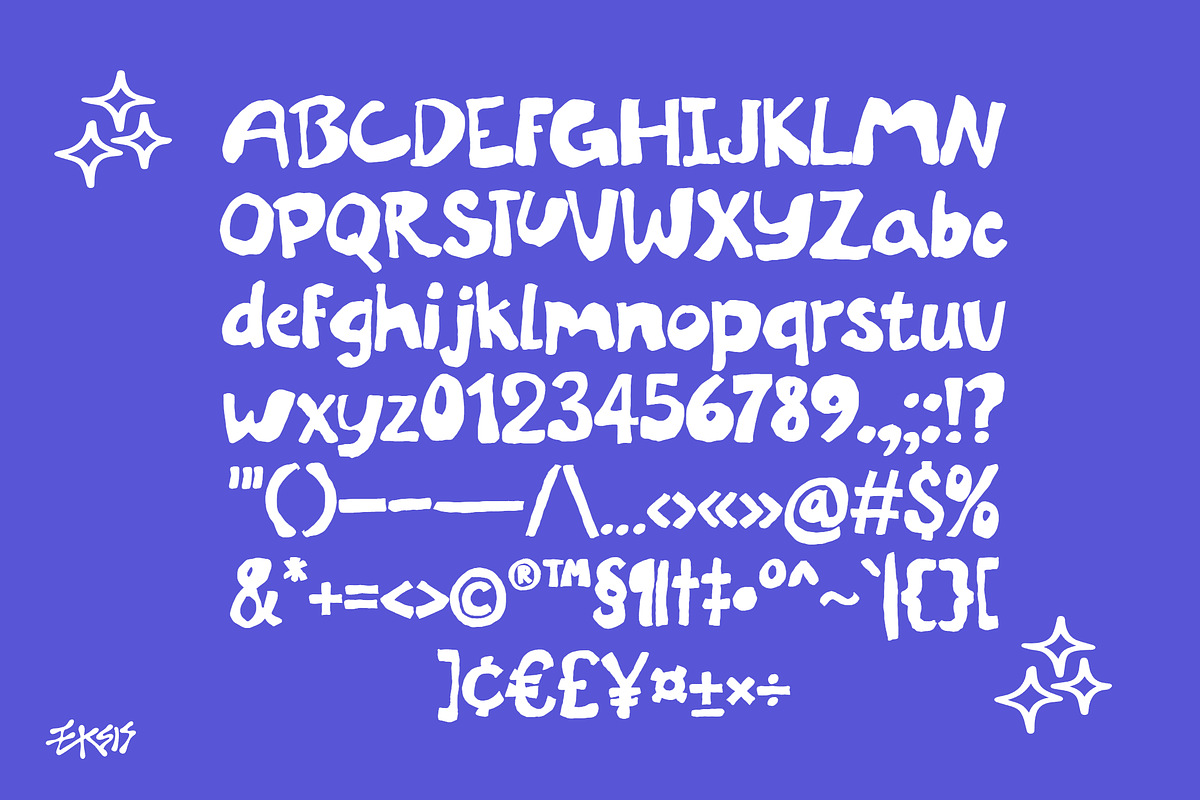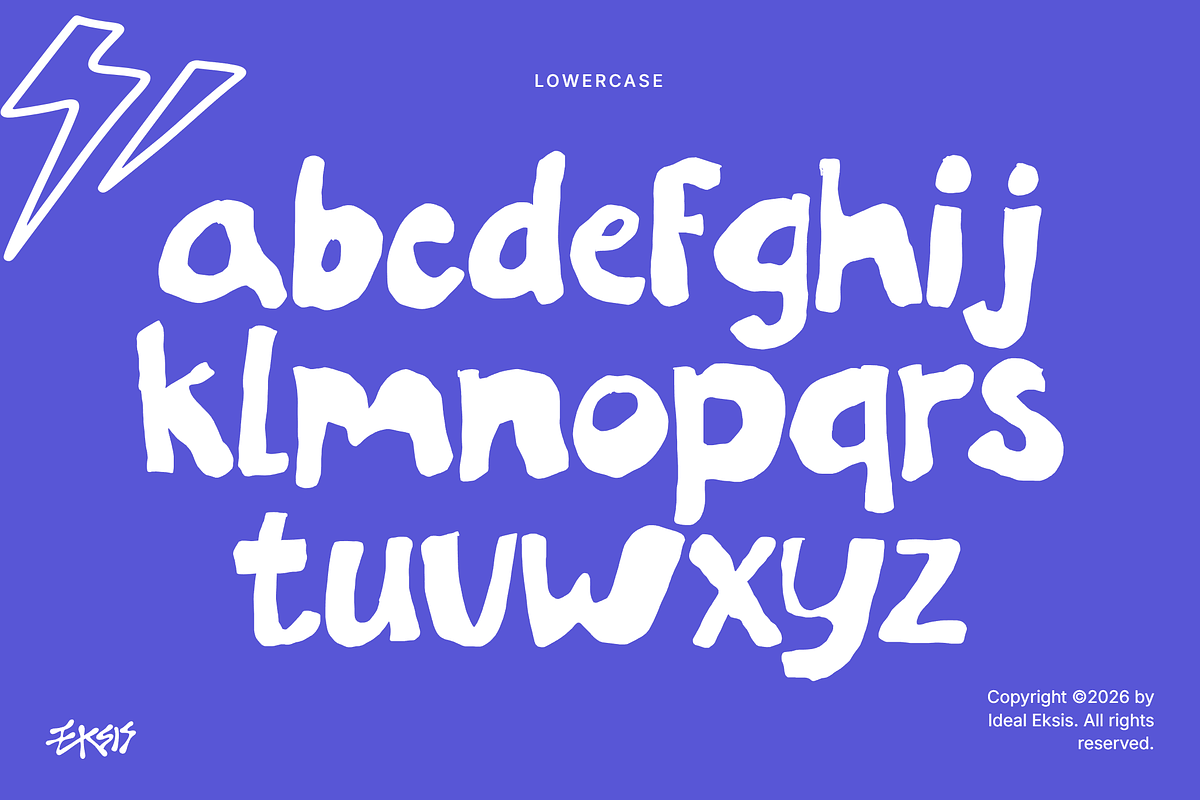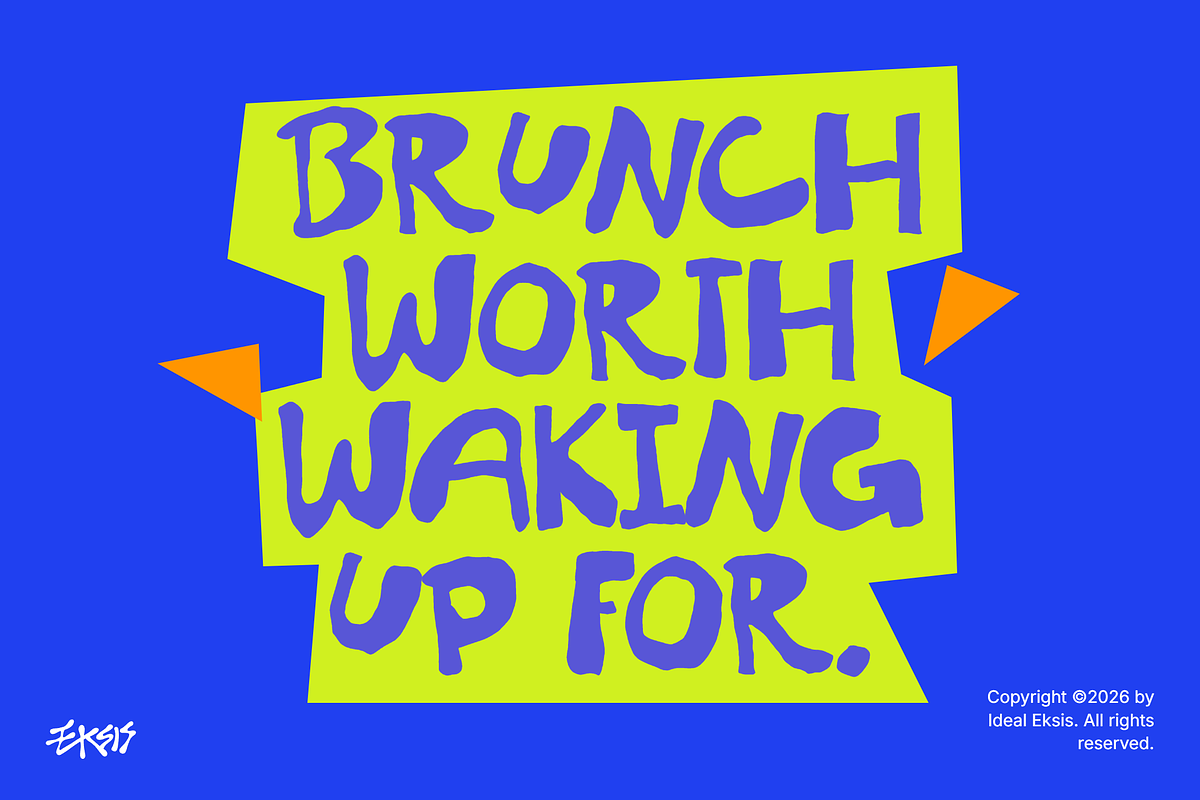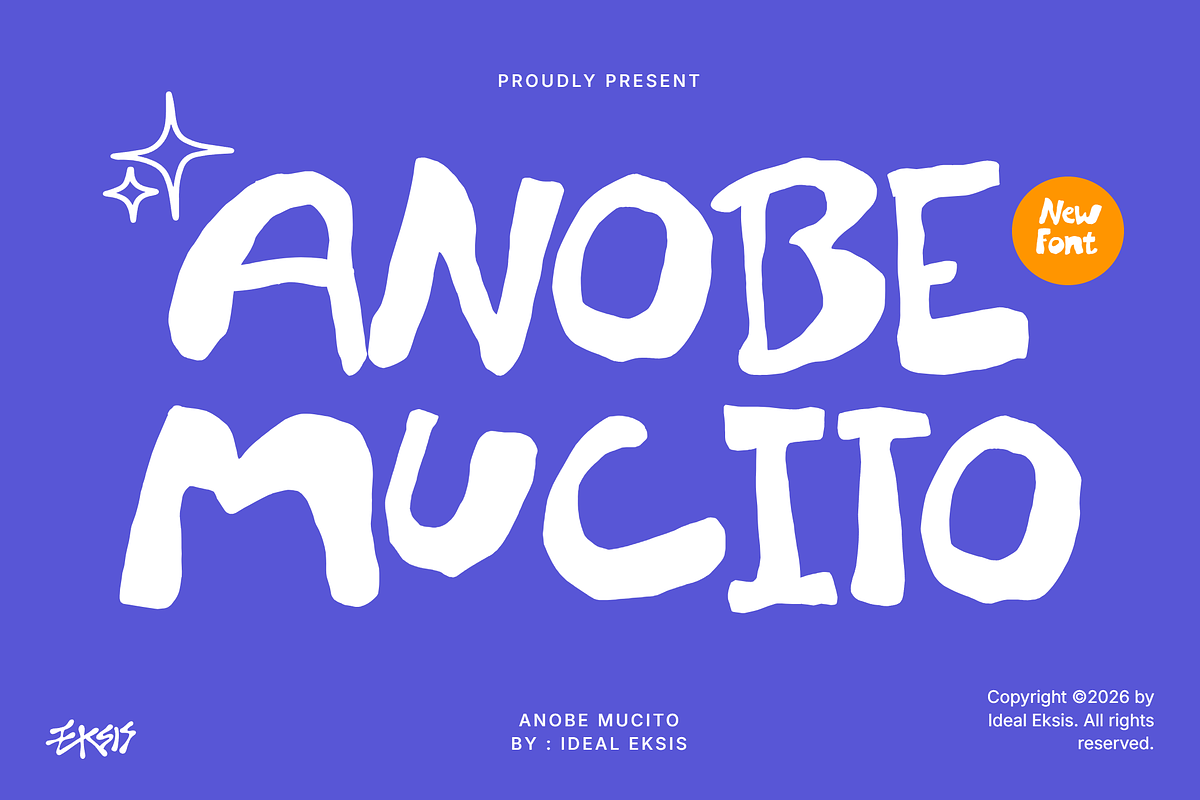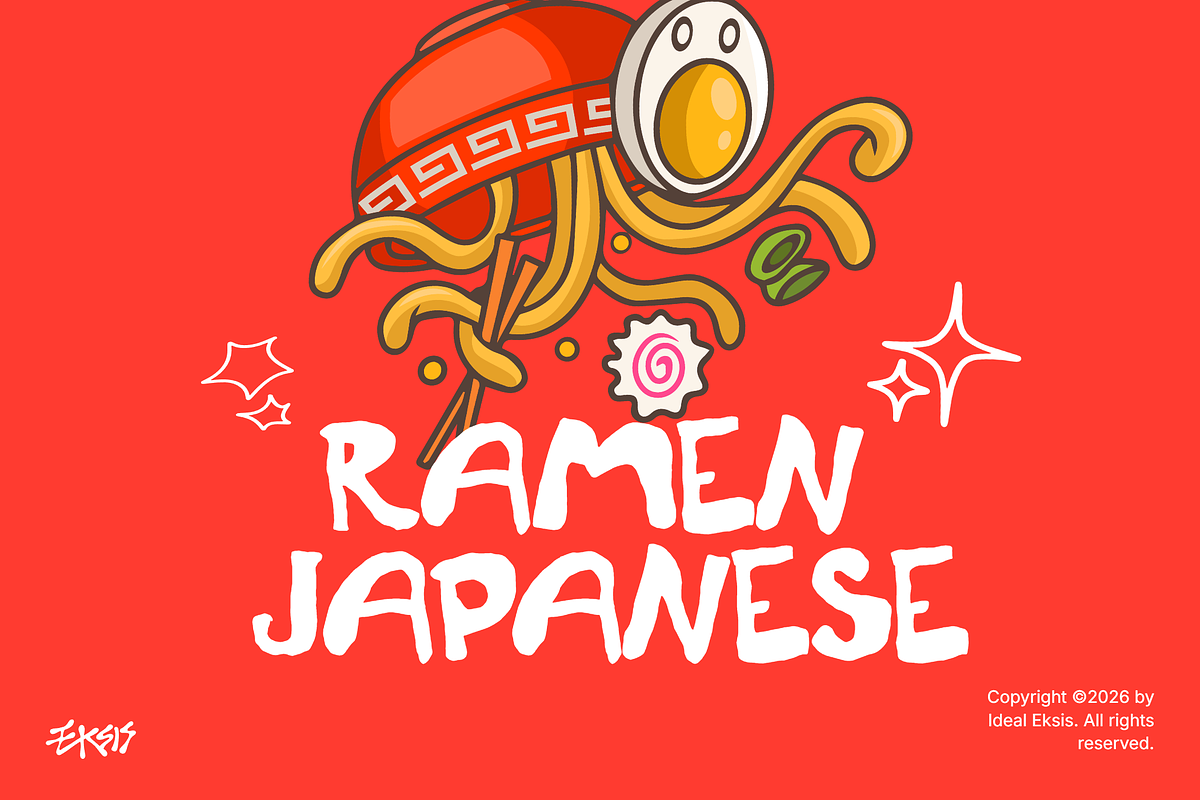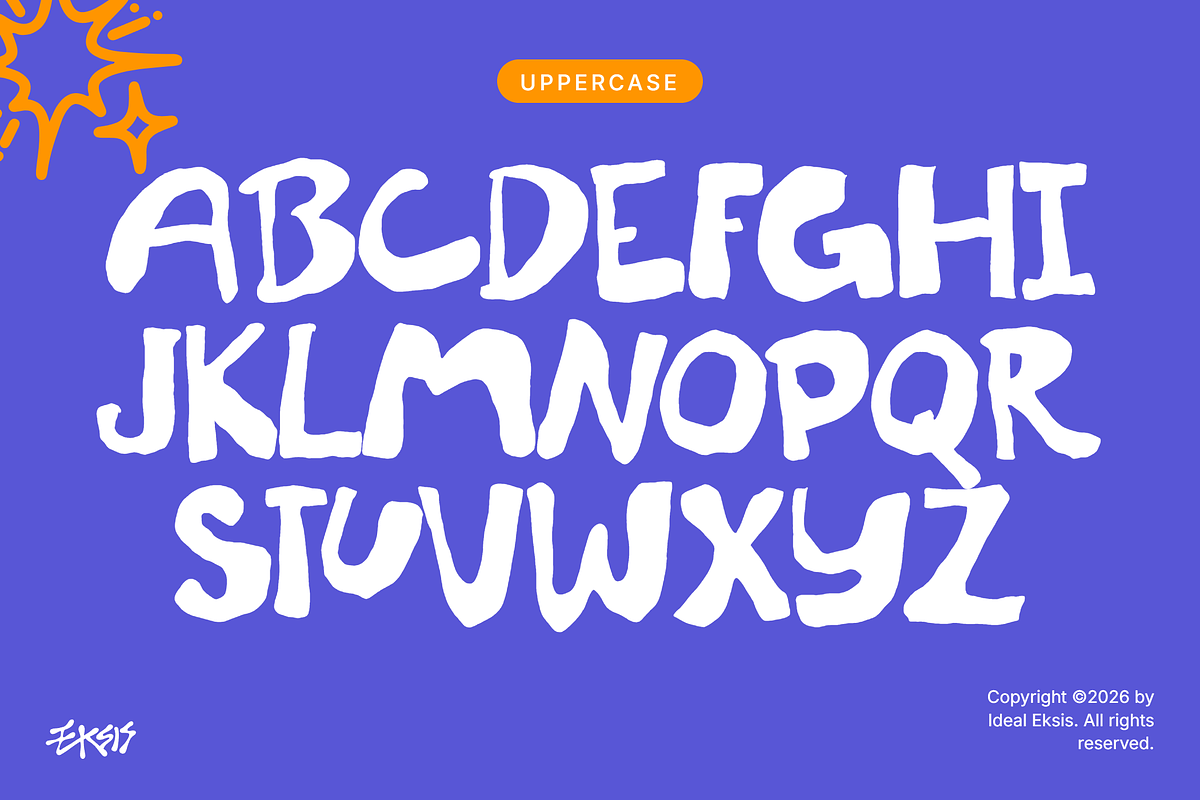
Anobe Mucito
+ Uppercase & Lowercase
+ Numbers & Punctuation
+ Alternates & Ligature
+ Multilingual Support
Perfect for
+ Bakery and café branding
+ Food and beverage logos
+ Restaurant menus and signage
+ Coffee shop and donut shop designs
+ Food packaging and labels
+ Social media food promotions
+ Kitchen-themed posters and prints
+ Culinary blogs and recipe graphics